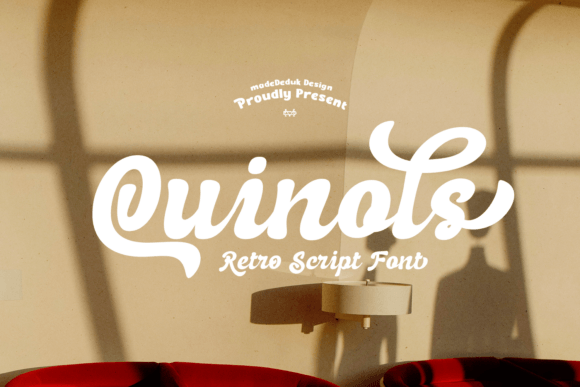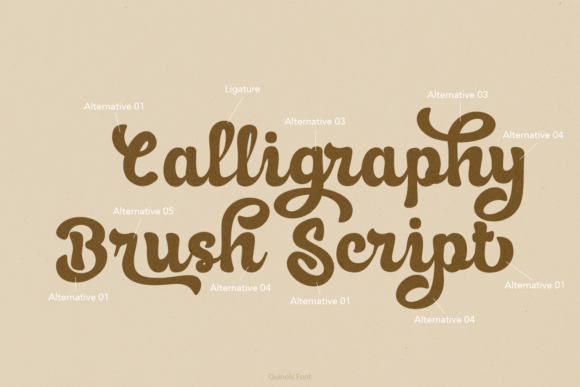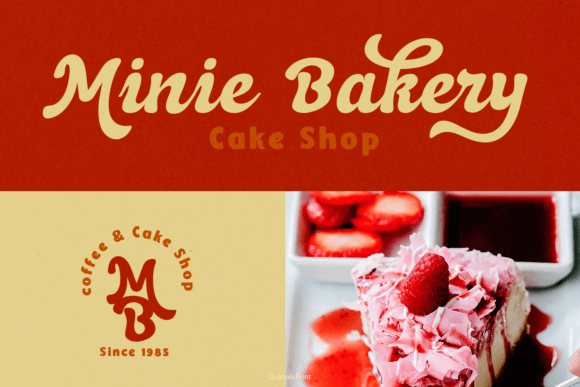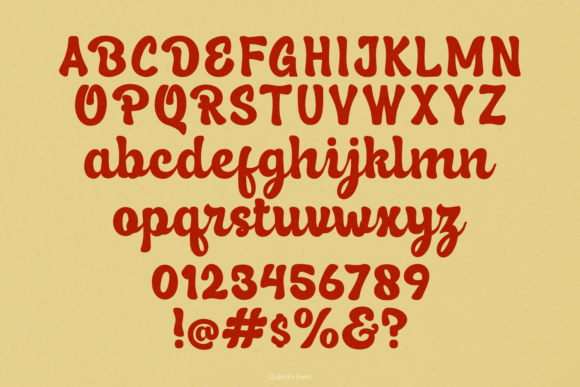
Quinols Font
About the Quinols Font
Experience the unique personality of Quinols Font, a font designed for impact. Quinols Retro Script font comes with a curly style with a lot of alternatives and ligature. This font is perfect for poster design, book covers, merchandise, fashion brands, advertising, magazines, album covers, wedding invitations, and more.
Quinols’ playful yet elegant nature makes it ideal for headlines, short text blocks, and branding elements where its distinctive character can shine. It works exceptionally well for projects needing a touch of vintage charm, such as packaging for artisanal goods or logos for boutique businesses. However, its ornate style is less suitable for body text or UI elements requiring high readability. Avoid using it for lengthy paragraphs or applications demanding screen legibility.
Pairing Quinols effectively requires consideration of its inherent energy. A clean sans-serif like Montserrat or Open Sans provides excellent contrast and readability when used for supporting text. For a more luxurious feel, a classic serif such as Garamond or Didot would complement its vintage flair. Avoid pairing it with other highly decorative scripts, which can create visual clutter.
Its core personality is best described as retro-chic; bold yet refined. Brands seeking to project a sense of playful sophistication, vintage appeal, or handcrafted quality will find Quinols a strong visual asset.
Quinols Font Usage Examples
Quinols Font Example